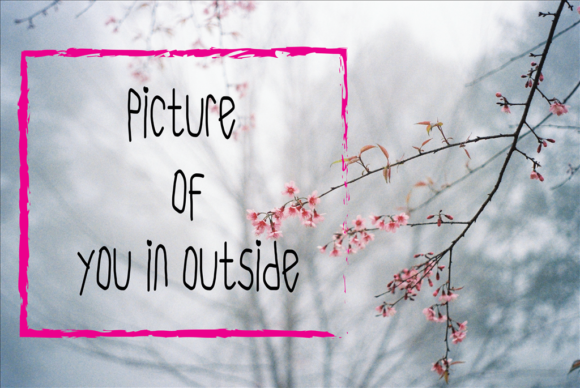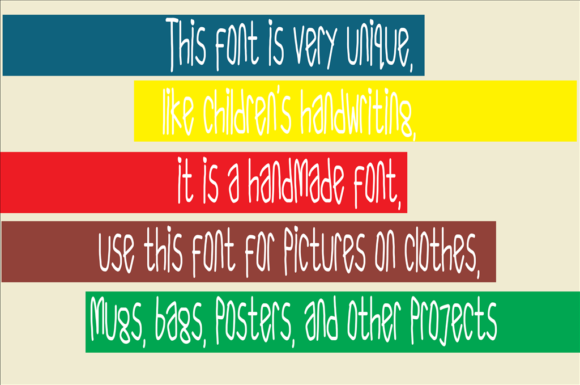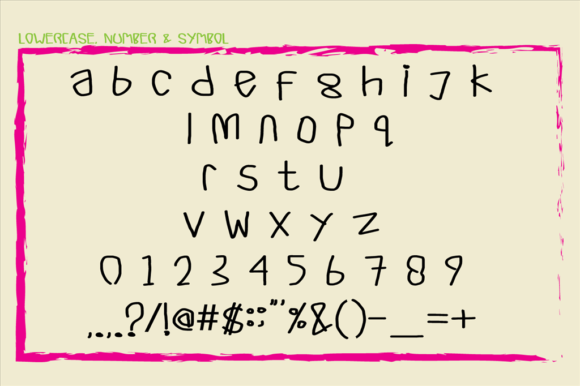
Introducing Friend of Mine Font: The Perfect Choice for Whimsical Creations
Are you a designer or crafter looking for a font that adds a touch of innocence and playfulness to your projects? Look no further than Friend of Mine Font! This simple and cute handwritten font is perfect for creating whimsical designs that capture the imagination. In this article, we’ll take a closer look at Friend of Mine Font, its features, and how you can use it to elevate your designs.
What is Friend of Mine Font?
Friend of Mine Font is a handwritten font that looks as if it was written by a child. Its simplicity and cuteness make it perfect for a variety of design projects, from writing letters to Santa to creating playful greeting cards. The font’s childlike quality gives it a sense of innocence and naivety, making it an excellent choice for designers and crafters who want to add a touch of whimsy to their creations.
Key Features of Friend of Mine Font
- Handwritten style: Friend of Mine Font has a handwritten style that gives it a personal and playful feel.
- Simple and cute: The font’s simplicity and cuteness make it perfect for designs that require a childlike touch.
- Childlike quality: The font’s childlike quality gives it a sense of innocence and naivety, making it perfect for designs that require a playful touch.
- Versatile: Friend of Mine Font can be used for a variety of design projects, from greeting cards to posters and social media graphics.
How to Use Friend of Mine Font in Your Designs
Friend of Mine Font is a versatile font that can be used in a variety of design projects. Here are some ideas to get you started:
- Letters to Santa: Use Friend of Mine Font to write letters to Santa Claus for kids. The font’s childlike quality makes it perfect for creating a sense of wonder and magic.
- Greeting cards: Use Friend of Mine Font to create playful greeting cards for birthdays, holidays, and other special occasions.
- Posters and flyers: Use Friend of Mine Font to create eye-catching posters and flyers for events, promotions, and products.
- Social media graphics: Use Friend of Mine Font to create playful social media graphics that capture the attention of your followers.
Tips for Using Friend of Mine Font Effectively
Here are some tips for using Friend of Mine Font effectively in your designs:
- Keep it simple: Friend of Mine Font is a simple font, so keep your design simple and uncluttered to make the most of its childlike quality.
- Use bright colors: Bright colors can enhance the playful quality of Friend of Mine Font. Use colors that are fun and playful to match the font’s personality.
- Experiment with sizes: Friend of Mine Font can be used in a variety of sizes. Experiment with different sizes to find the one that works best for your design.
- Pair with other fonts: Friend of Mine Font can be paired with other fonts to create a unique and interesting design. Experiment with different font combinations to find the one that works best for your project.
Friend of Mine Font is a simple and cute handwritten font that adds a touch of innocence and playfulness to any design project. Its childlike quality makes it perfect for designs that require a whimsical touch. With its versatility and ease of use, Friend of Mine Font is an excellent choice for designers and crafters who want to create playful and eye-catching designs. So why not give it a try and see how it can elevate your designs?